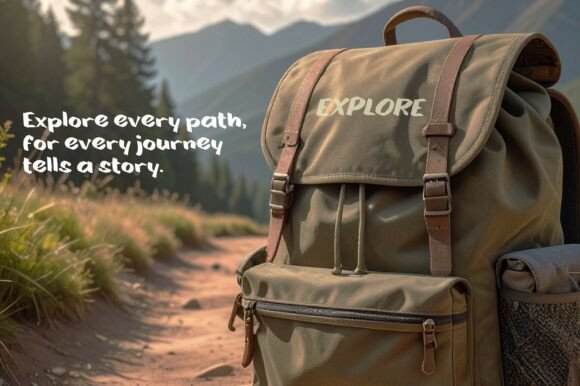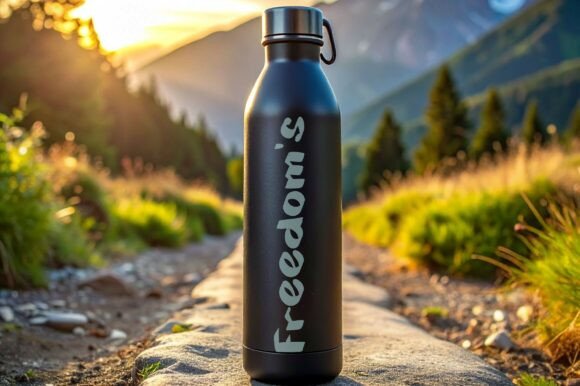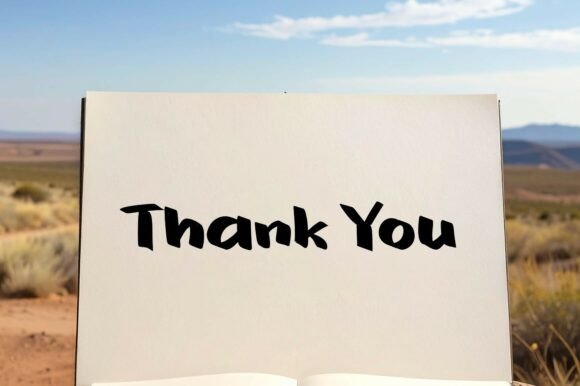
Hit the Trail with the Perfect Font: Backpack Font
Do you remember that moment when you’re on a road trip, surrounded by breathtaking landscapes and the sound of your favorite music? You pull over at a quirky roadside diner, and as you’re sipping your coffee, you start scribbling notes in your travel journal. The handwriting is messy, but it’s yours, and it’s a reminder of the adventure you’re on. That’s the essence of the Backpack Font – a friendly and casual typeface that captures the spirit of spontaneity and exploration.
The Backpack Font is designed to evoke a sense of comfort and authenticity, making it an excellent choice for designers who want to connect with their audience on a personal level. It’s perfect for branding adventurous products, creating inviting signage for cafes or boutiques, and designing personal stationery. By using the Backpack Font, designers can convey warmth and a relaxed spirit, encouraging a sense of exploration and genuine connection.
Key Features of Backpack Font
- Unique Characteristics: Backpack Font features a unique blend of modern and vintage elements, making it perfect for creating a distinctive and eye-catching visual identity.
- Font Style and Weight: Backpack Font includes 12 styles, ranging from Light to Black, providing ample flexibility for designers to choose the perfect fit for their project.
Backpack Font Review
As a designer, I was excited to dive into Backpack Font and see if it lived up to its promise. Overall, I found it to be a solid, yet unremarkable choice for typography.
- ✨ Unique design aesthetic: Backpack Font has a distinct, hand-drawn feel that’s perfect for creative projects and designs that require a bit of personality.
- ✨ Good legibility: Despite its whimsical design, Backpack Font is still relatively easy to read, making it a great choice for body text.
- ✨ Wide character set: Backpack Font includes a wide range of characters, including international scripts and symbols, making it a great choice for multilingual projects.
- ⚠️ Limited font weights: Backpack Font is available in only a few font weights, which can limit its versatility in certain design situations.
- ⚠️ Not ideal for small text: Due to its hand-drawn design, Backpack Font can become difficult to read when used in small text sizes.
Overall, I’d say that Backpack Font is a solid choice for designers looking for a unique, creative font. While it may not be the most versatile or practical choice, it’s definitely worth considering for projects that require a bit of personality and flair.
Tips for Getting the Most Out of Backpack Font
Use Backpack Font for titles and headings to add a unique and playful touch to your designs.
Combine Backpack Font with other fonts to create a visually interesting and balanced design.
Experiment with different font sizes and styles to add emphasis and hierarchy to your text.
Common Use Cases for Backpack Font
Use Backpack Font for branding and marketing materials, such as logos, business cards, and brochures.